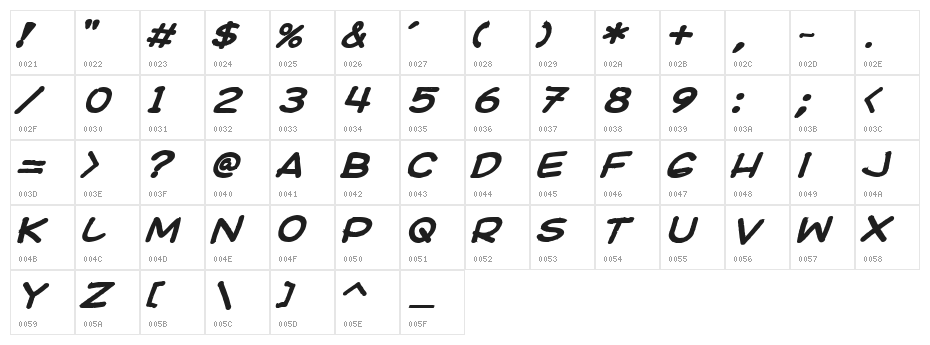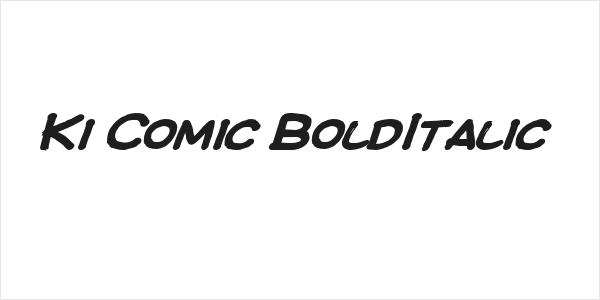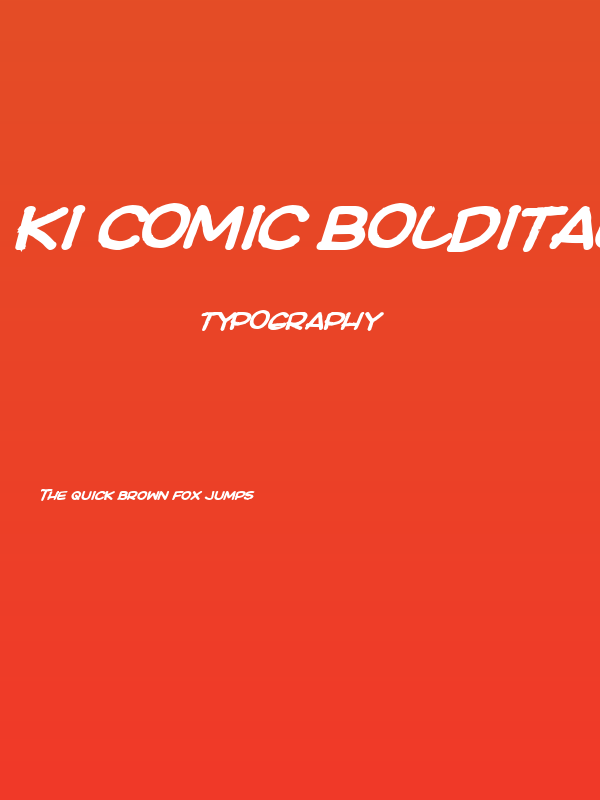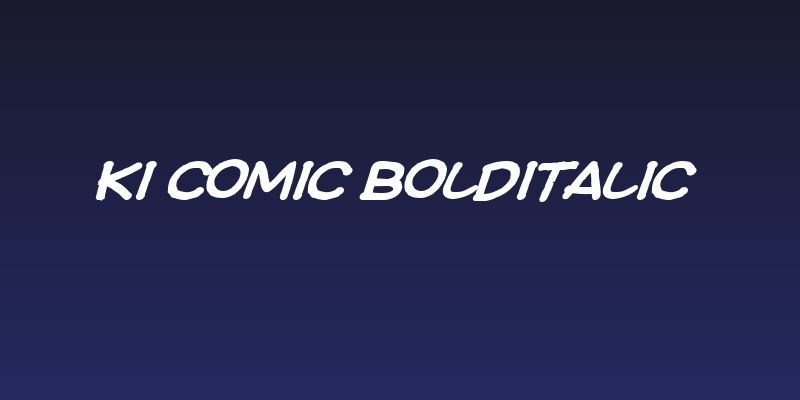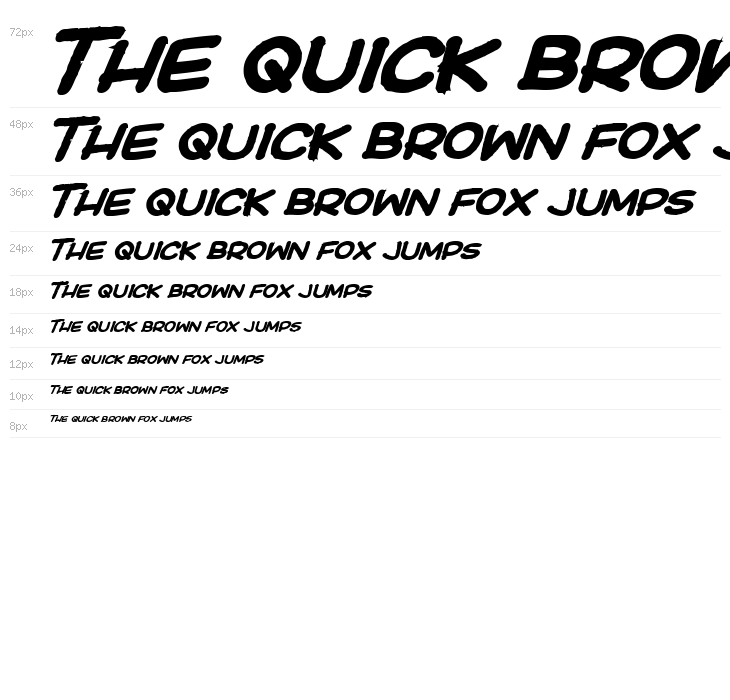
Ki Comic BoldItalic Font
Ki Comic BoldItalic Description
This font features a playful and dynamic style, characterized by its bold and italicized letterforms. The strokes are thick and rounded, giving it a friendly and approachable appearance. The characters are slightly slanted, adding a sense of movement and energy. The font maintains a consistent weight throughout, with smooth curves and a casual, handwritten feel. It includes a full set of uppercase and lowercase letters, numbers, and a variety of special characters, making it versatile for different uses.
Overall StylePlayful
Proposed ProjectsIdeal for comic books, children's books, playful branding, and informal posters.